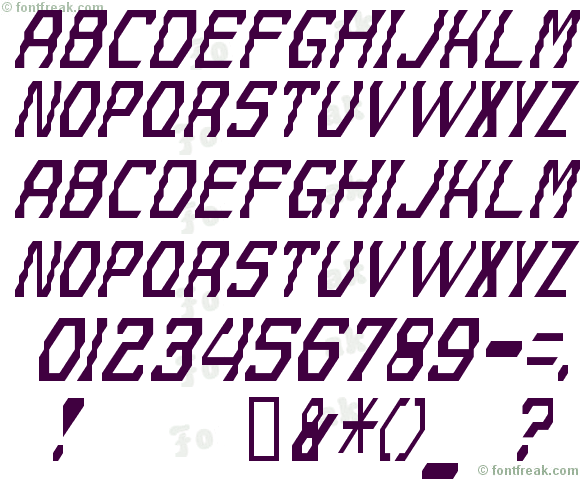
Gyrussian
Gyrussian, designed by Ray Larabie in 1998, is a striking display font that captures attention with its unique, geometric style. This font is categorized as a decorative typeface, characterized by a bold stroke weight and sharp angles that create a sense of dynamism. The letters feature a distinctive contrast, with thick and thin sections that enhance readability while adding an edge to any design. The spacing is well-considered, allowing for a harmonious flow that maintains clarity even in larger text settings. Gyrussian's visual appeal is further accentuated by its slightly slanted forms, which evoke a sense of movement and modernity.
This font is ideal for a variety of creative applications. It excels in projects such as movie posters where an impactful title is essential, making it perfect for action or sci-fi genres. Restaurant menus can benefit from Gyrussian’s bold character, drawing attention to special dishes or events in a trendy eatery. Additionally, it can be effectively used in promotional materials for sports events, adding a sense of excitement and energy. Graphic designers will find it particularly useful for creating eye-catching logos or branding elements that need to stand out. Content creators looking to add flair to their social media graphics or digital publications will also appreciate its unique aesthetic.